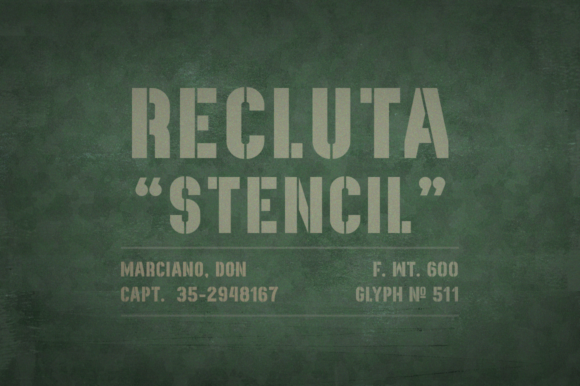
Introducing Recluta Font, the ultimate font for captivating and impactful designs. Created by the talented DonMarciano, this military bold stencil inspired font is the game-changer you've been waiting for. With its striking aesthetics and undeniable presence, Recluta Font is the perfect choice for those seeking to make a powerful statement.
Recluta Font belongs to the display font family, ensuring that your designs will stand out from the crowd. Its unique and eye-catching style sets it apart, making it an ideal choice for various projects, including CV titles. If you're looking to make a lasting impression, this is the font for you.
Why settle for ordinary when you can be extraordinary? Recluta Font allows you to unleash your creativity and take your designs to the next level. With its bold and commanding appearance, it captures attention instantly. Whether you're creating posters, logos, or social media graphics, Recluta Font will make your work shine.
Designed with the utmost attention to detail, Recluta Font exudes professionalism and sophistication. Its clean and precise lines convey a sense of authority and elegance, making it an excellent choice for resumes and professional documents. Let your CV stand out from the rest with the best font for CV titles - Recluta Font.
But Recluta Font is not just limited to professional use. Its versatility allows it to adapt to various design styles and themes. From edgy and urban to futuristic and sleek, this font seamlessly blends into any concept, adding a touch of flair and personality.
With Recluta Font, the possibilities are endless. Let your imagination run wild as you explore its potential in creating memorable branding, captivating advertisements, or stunning website headers. This font empowers you to make a statement and leave a lasting impression on your audience.